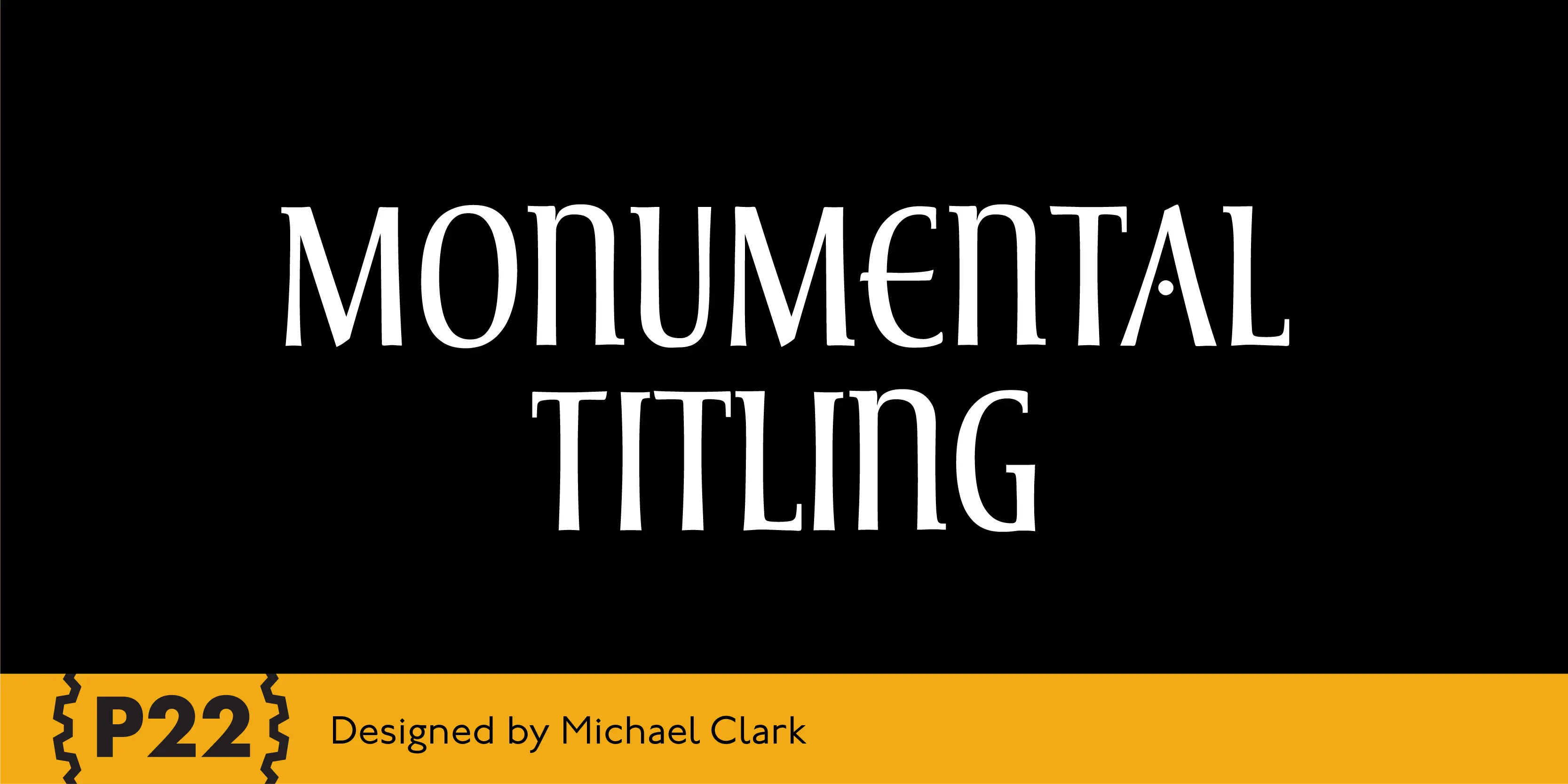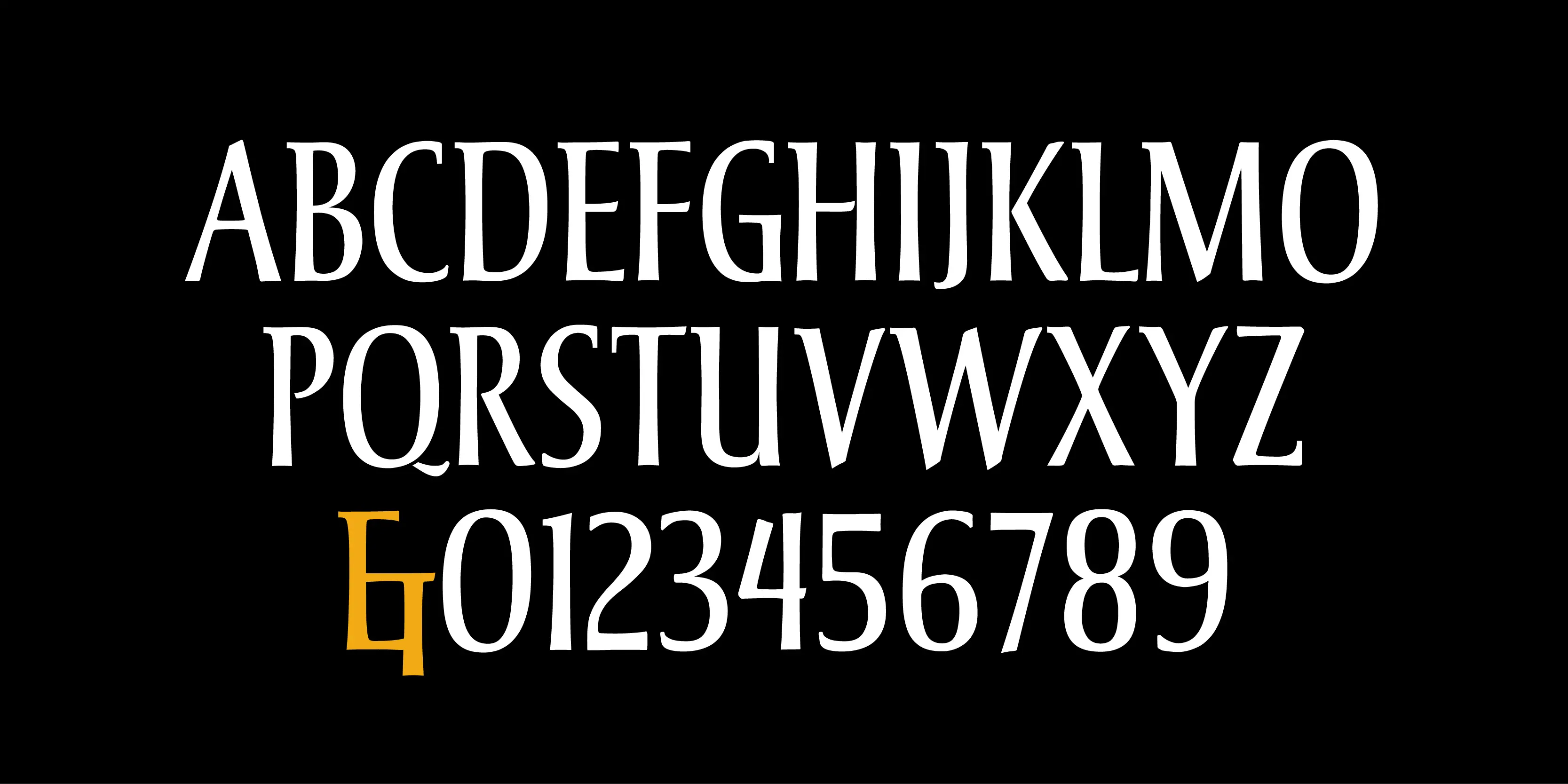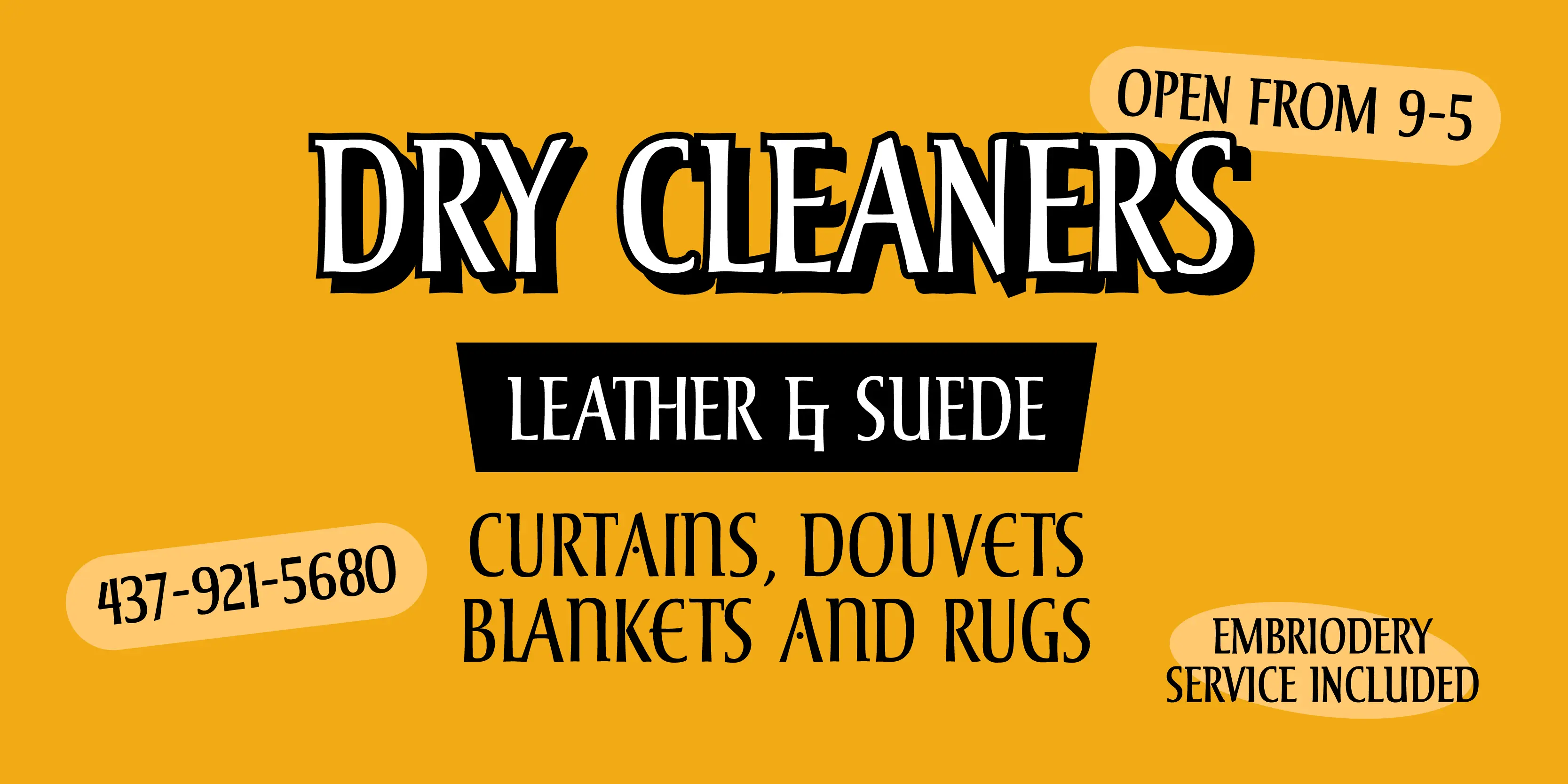
Monumental Titling Fonts
Monumental Titling
Based on Transitional Roman forms, this tasteful and well crafted Humanist display face exudes an air of authority along with a subtle playfulness. Narrow proportions allow for space conservation. Alternate letterforms & ligatures give this caps-only font expanded possibilities for any given text setting.